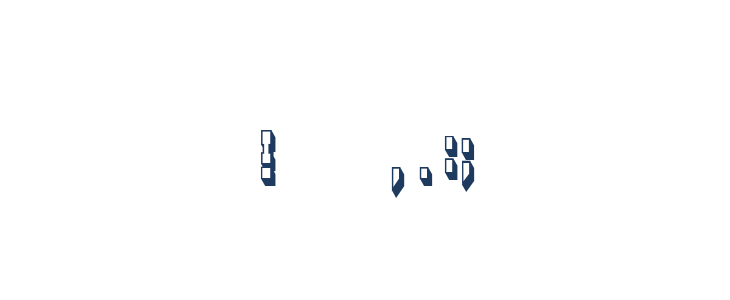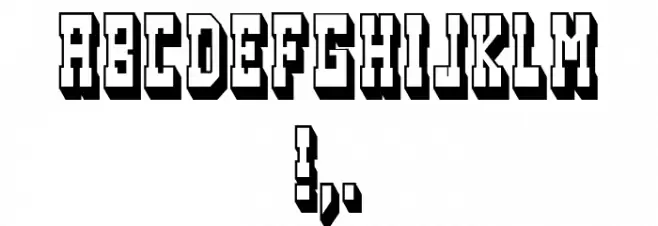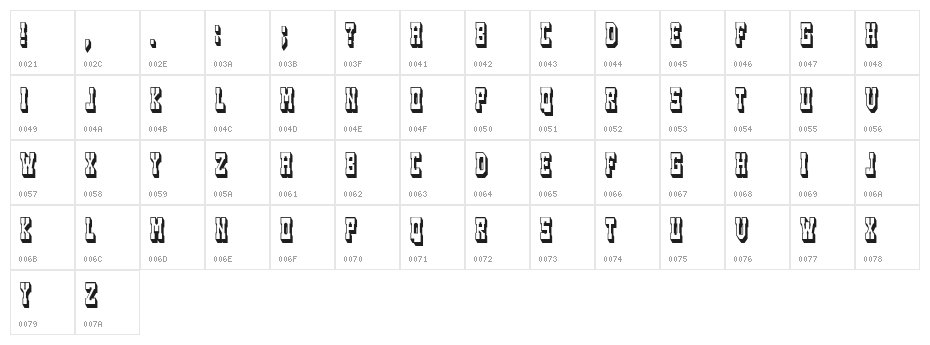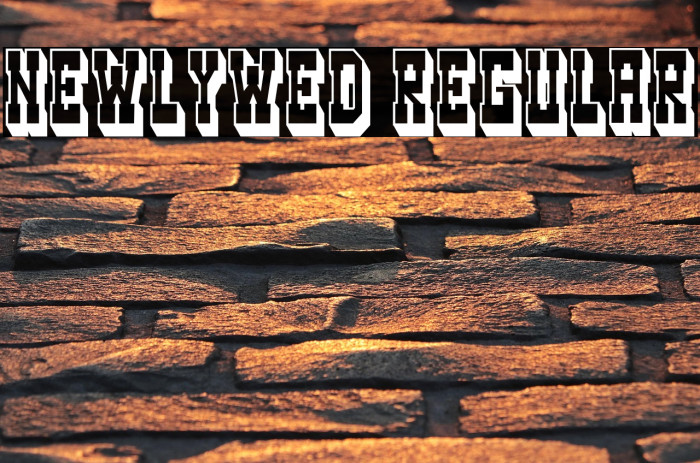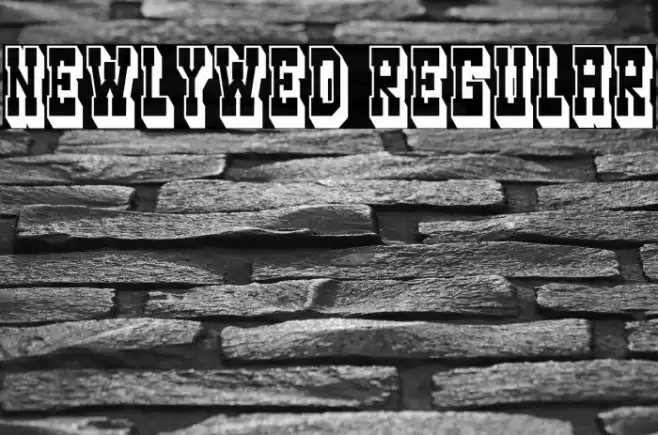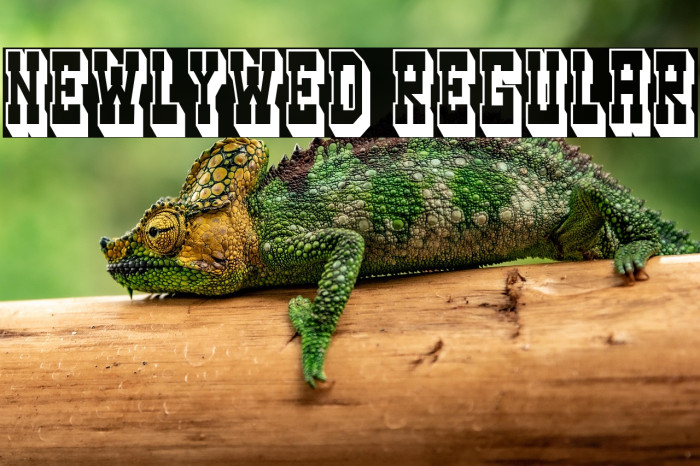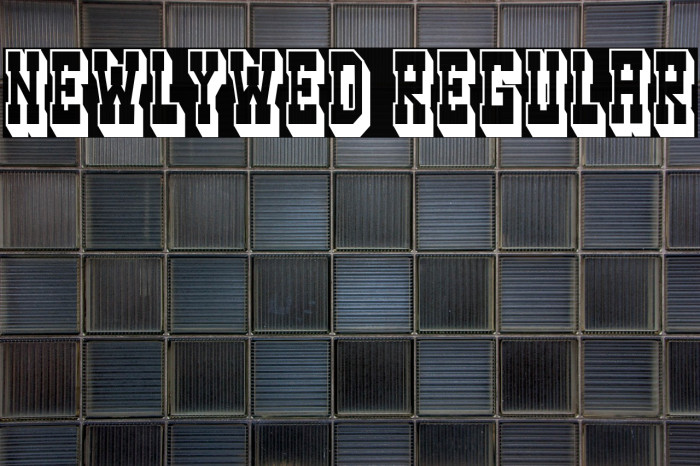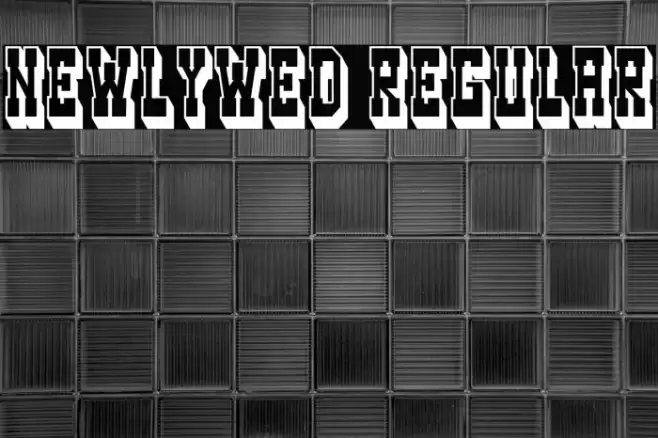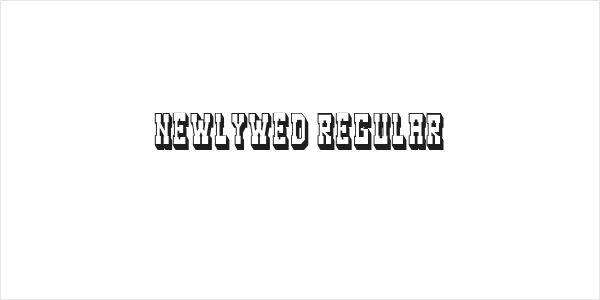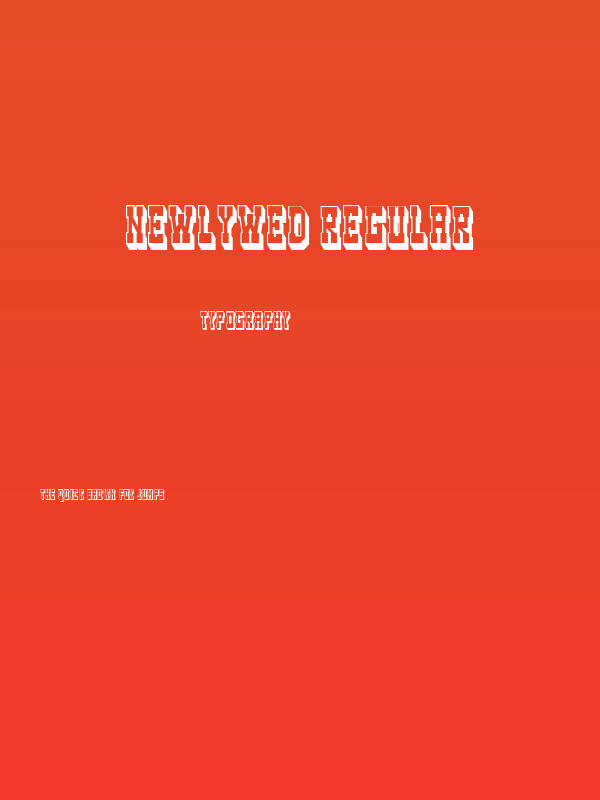
Newlywed Regular Font
Newlywed Regular Description
This font features a bold, three-dimensional design with a strong shadow effect that gives it a striking, impactful appearance. The characters are uppercase only, with a blocky, geometric style that emphasizes straight lines and sharp angles. The shadowing adds depth and a sense of movement, making it ideal for attention-grabbing headlines or titles. The font's structure is consistent, with each letter maintaining a uniform height and width, contributing to its cohesive and balanced look. The absence of lowercase letters and numerals suggests a focus on decorative and display purposes.